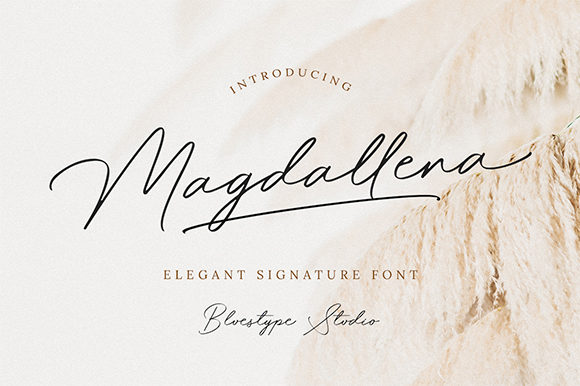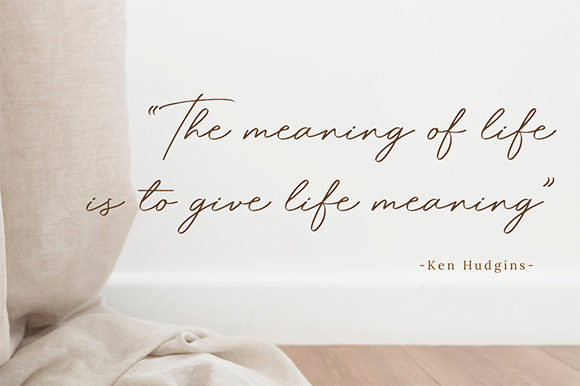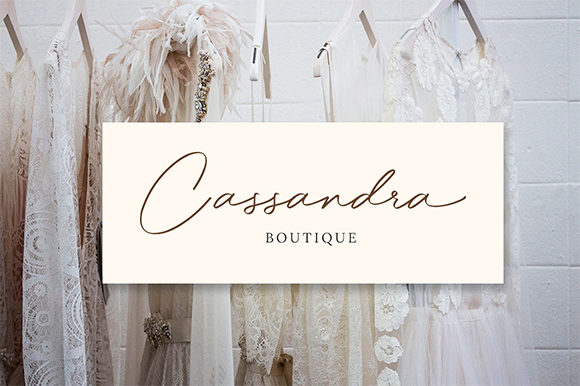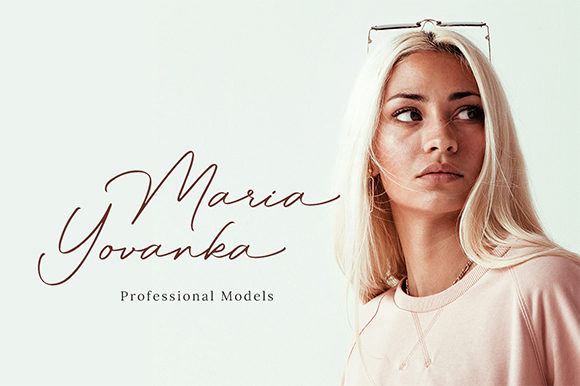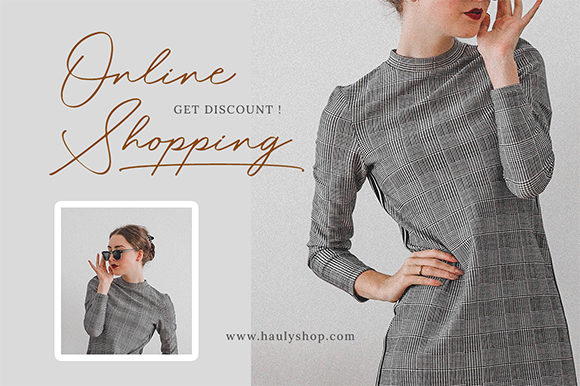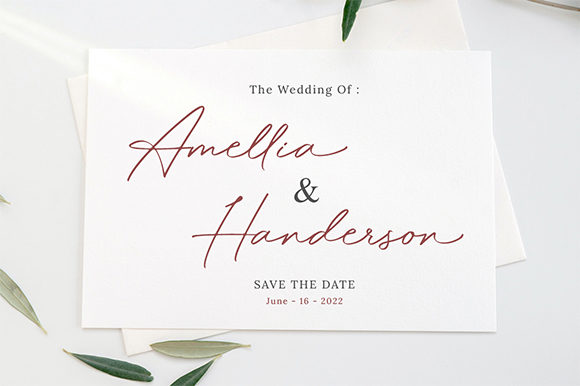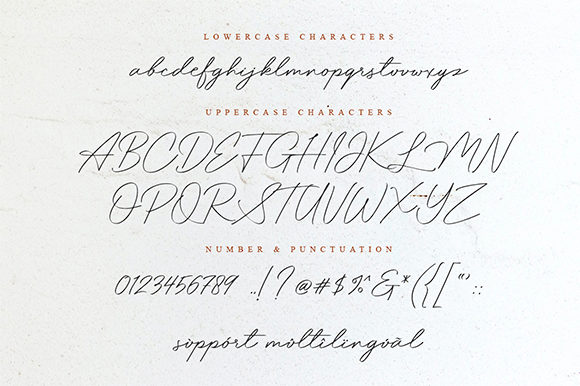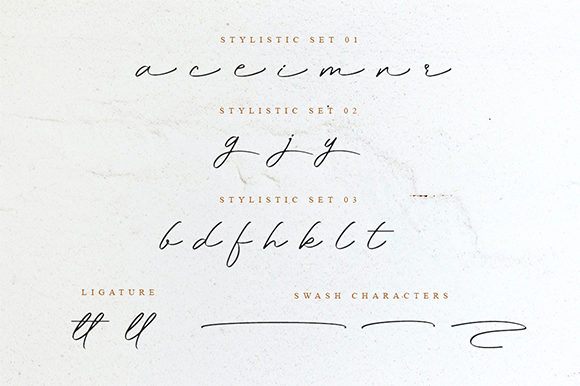
Magdallena Font
About Magdallena Font
Magdallena is a gorgeous and sweet script that will add an elegant feel to your next design idea. Get inspired by its unique charm.